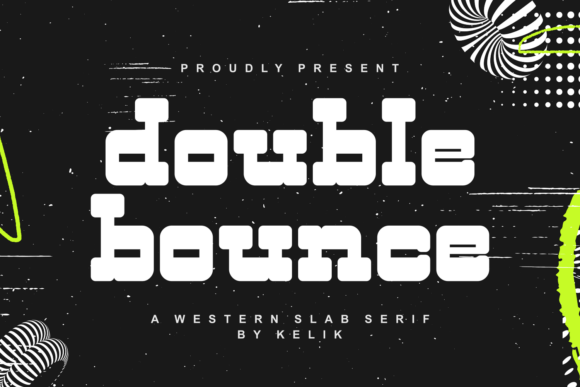
Double Bounce Font for Handmade Branding and Crafts
As a small business owner constantly searching for the perfect typography to make my products pop, I found that Double Bounce is a bold and bouncy western slab serif font that combines rugged character with playful energy in a way few other typefaces can. While my shop often utilizes various Script Handwritten styles for delicate details, this specific addition to my collection of Fonts has transformed how I approach headers, packaging, and brand identity. With its thick, rounded serifs and geometric form, this typeface is perfect for branding projects that need to balance vintage charm with modern readability, making it an essential asset for crafters who sell physical goods or digital downloads.
Double Bounce for Product Packaging and Label Design
When designing labels for candles, jars, or boutique packaging, Double Bounce offers a distinct visual weight that stands out on shelves and in product photography. Unlike thinner display fonts that might get lost against textured paper or dark backgrounds, the robust structure of this western slab serif ensures your product name remains legible even at smaller sizes. For handmade sellers creating sticker labels or hang tags, the geometric form provides a satisfying sense of stability that communicates quality and durability to the customer. I have found that using this font for primary product titles creates an immediate focal point, while leaving ample negative space allows for necessary regulatory text or ingredient lists to remain clear. The playful energy inherent in the letterforms adds a layer of approachability to rustic or farmhouse-style packaging, preventing the design from feeling too austere or overly traditional.
Readability Tips for Cutting Machines and Vinyl Decals
Crafters using Cricut or Silhouette machines will appreciate that Double Bounce is engineered with clean lines that translate beautifully to vinyl and heat transfer applications. The thick, rounded serifs are substantial enough to weed easily without tearing, which is a common frustration with more intricate script fonts or distressed typefaces. When creating car decals, tumbler wraps, or wooden signs, the bold nature of this font ensures high contrast against varied surfaces, maintaining visibility from a distance. For those producing SVG-style designs for sale, this typeface offers excellent commercial viability because it retains its integrity when scaled up for large wall art or down for laptop stickers. Always test cut a small sample first, but generally, the solid construction of these letterforms reduces production time and material waste compared to finer, more fragile alternatives.
Double Bounce for Wedding Signage and Event Stationery
In the competitive market of wedding stationery and event decor, Double Bounce serves as a striking alternative to overused calligraphy for couples seeking a non-traditional aesthetic. While many designers default to flowing scripts for every element, incorporating this bold slab serif for welcome signs, seating charts, or menu headers introduces a trendy, retro-modern vibe that photographs exceptionally well. The rugged character pairs surprisingly well with romantic themes, adding a touch of personality to outdoor weddings, barn venues, or desert-inspired elopements. For printable product creators, offering templates that feature this font can attract buyers looking for something unique yet readable. The geometric precision ensures that guests can quickly scan information from afar, solving a practical functional need while delivering the stylistic impact that makes event branding memorable and cohesive.
Font Pairing Strategies for Balanced Layouts
To maximize the versatility of Double Bounce in your design work, understanding effective font pairing is crucial for creating professional-looking templates and merchandise. Because this typeface carries significant visual weight and personality, it works best when anchored by simpler supporting fonts rather than competing display styles. I recommend pairing it with a clean, minimalist sans serif for body copy on invitations or product descriptions to maintain hierarchy and prevent visual clutter. Alternatively, contrasting its structured geometry with a delicate, organic handwritten font can soften the overall look, bridging the gap between masculine and feminine aesthetics. This combination is particularly effective for social media graphics and digital downloads where you need to capture attention quickly while ensuring all textual information remains accessible. Avoid pairing it with other heavy slab serifs or complex blackletter fonts, as this can make the design feel dense and difficult to read.
Double Bounce for Digital Printables and Social Media Graphics
For creators selling digital planners, wall art, or Instagram templates, Double Bounce provides the typographic anchor needed to stop users from scrolling past your content. The bold strokes render crisply on screens of all resolutions, making it ideal for headlines in Canva templates, Pinterest pins, or Etsy listing images. In the realm of digital products, perceived value is often tied to typography choices; using a premium-feeling western slab serif signals to buyers that the product is thoughtfully designed rather than hastily assembled. The playful bounce in the baseline adds movement to static digital layouts, guiding the viewer’s eye across the composition naturally. Whether you are designing motivational quote prints, educational worksheets for kids, or promotional banners for seasonal sales, this font delivers the commercial appeal necessary to convert casual browsers into paying customers.
Ultimately, selecting the right typography is about more than just aesthetics; it is about finding tools that streamline your workflow and elevate your brand's perceived value. Double Bounce succeeds because it occupies a sweet spot between nostalgic warmth and contemporary utility, making it indispensable for makers who refuse to compromise on either style or function. By leveraging its unique characteristics across packaging, signage, and digital media, you can build a cohesive visual identity that resonates with customers and sets your handmade products apart in a crowded marketplace. Remember to experiment with scale, spacing, and color to fully unlock the potential of this versatile typeface in your next creative project.